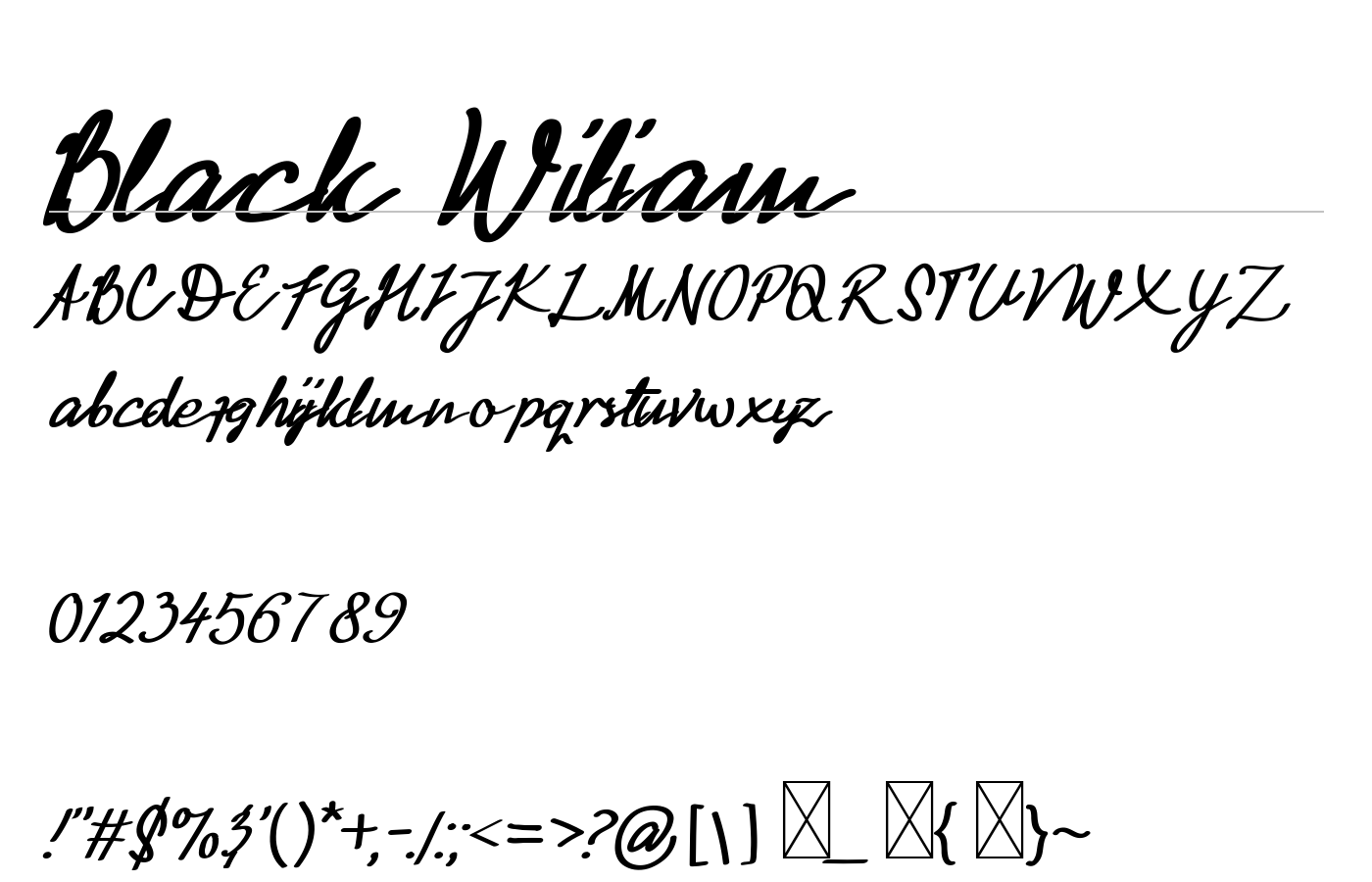
Black Wiliam is a bold, handwritten script font with a lively, organic feel that mimics natural brush strokes. Its strong weight and slightly condensed letterforms give it a confident, energetic style, perfect for adding a personal, artistic touch to branding, logos, or creative headlines. This font works best where a dynamic, expressive look is desired, bringing warmth and personality to designs without sacrificing readability.
Black Wiliam Font
About Black Wiliam Font